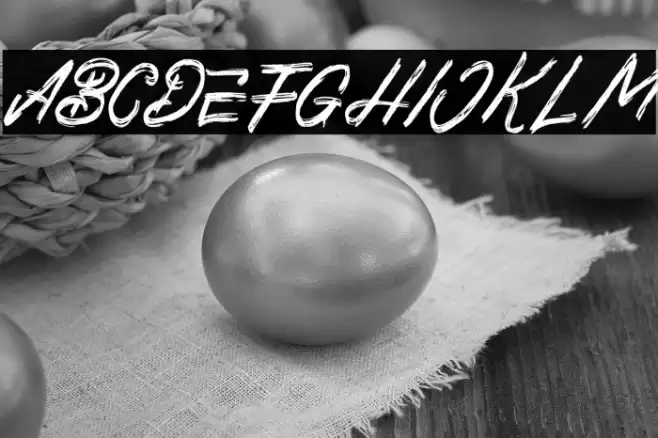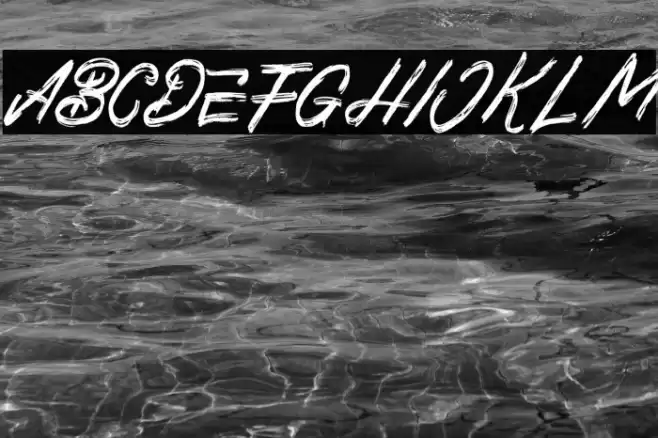
BraserFREE Font
BraserFREE Description
This font features a dynamic and expressive brush script style, characterized by its bold and fluid strokes. The letters are crafted with a sense of motion and energy, giving them a hand-painted appearance. The uppercase letters are slightly more structured, while the lowercase letters exhibit a more casual and flowing form. The strokes vary in thickness, adding a sense of depth and texture to the overall design. This font captures a sense of artistic flair and spontaneity, making it ideal for creative and eye-catching designs.
A bold, expressive brush script font with dynamic strokes from Uncategorized fonts.
- Proposed Projects: Ideal for branding, posters, invitations, and artistic projects that require a bold, creative touch.